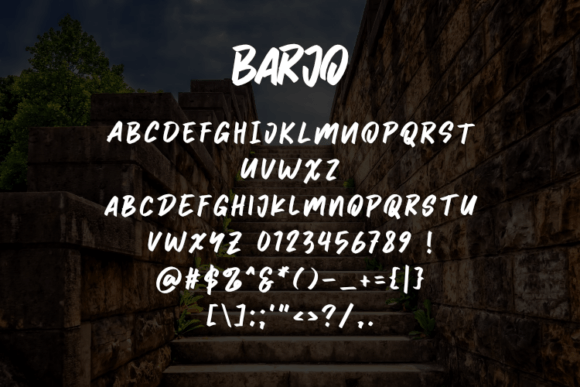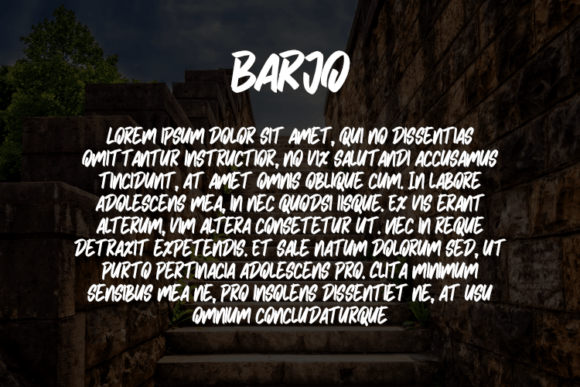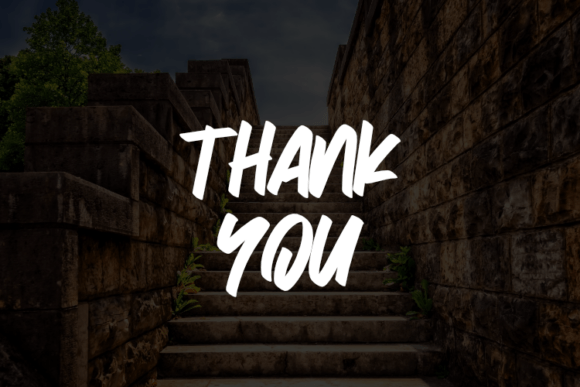
Unleash Your Creativity with Barjo Font: The Ultimate Design Companion
Are you a designer, crafter, or creative enthusiast looking for a font that can elevate your designs to new heights? Look no further than the Barjo font, a dynamic and versatile typeface that is perfect for a wide range of design applications. From clothing and product design to branding and marketing materials, Barjo’s adaptability knows no bounds, making it an ideal choice for any creative project.
A Fresh, Contemporary Aesthetic
Barjo font is designed to deliver a fresh, contemporary aesthetic that suits every creative need. Its unique styling is both bold and elegant, making it perfect for designers who want to add a touch of sophistication to their work. Whether you’re creating a logo, brochure, or social media graphic, Barjo’s clean lines and modern look will help you stand out from the crowd.
One of the best things about Barjo font is its incredible flexibility. It’s not restricted to any single design or application, making it a versatile choice for a wide range of creative projects. Here are just a few examples of how you can use Barjo font in your designs:
- Clothing Design: Use Barjo font to create bold, eye-catching labels and logos for your clothing brand.
- Product Design: Add a touch of sophistication to your product packaging with Barjo’s elegant styling.
- Branding: Use Barjo font to create a consistent brand identity across all your marketing materials.
- Marketing Materials: From brochures and flyers to social media graphics and posters, Barjo font is perfect for any marketing material.
Why Choose Barjo Font?
So why choose Barjo font for your design projects? Here are just a few reasons:
- Unique Styling: Barjo font has a unique, dynamic styling that’s perfect for designers who want to stand out.
- Versatility: Barjo font is incredibly versatile, making it suitable for a wide range of design applications.
In conclusion, Barjo font is an excellent choice for designers, crafters, and creative enthusiasts who want to elevate their designs to new heights. Its dynamic, versatile styling, technical compatibility, and flexibility make it perfect for a wide range of design applications. Whether you’re creating clothing, product designs, branding materials, or marketing graphics, Barjo font is the ultimate design companion. So why wait? Embrace the boldness of Barjo and take your designs to the next level.